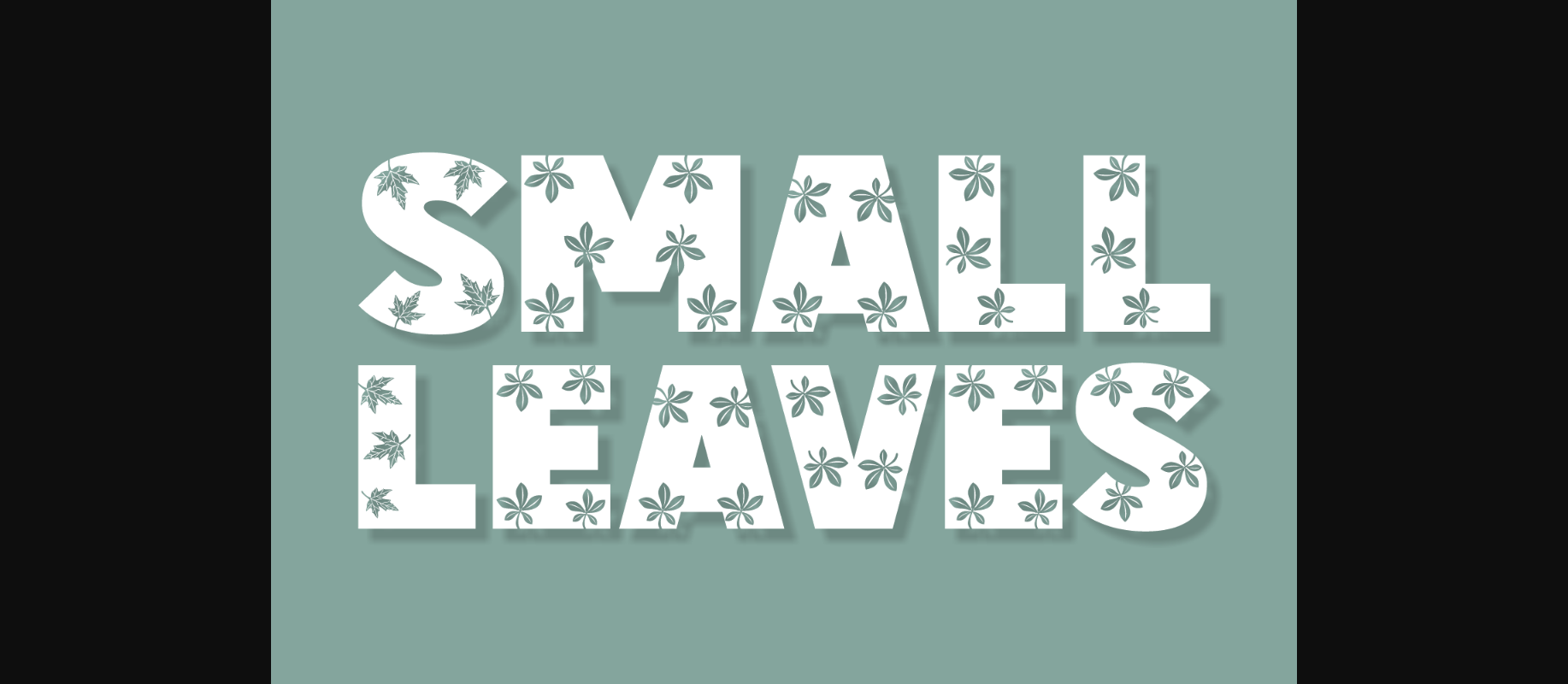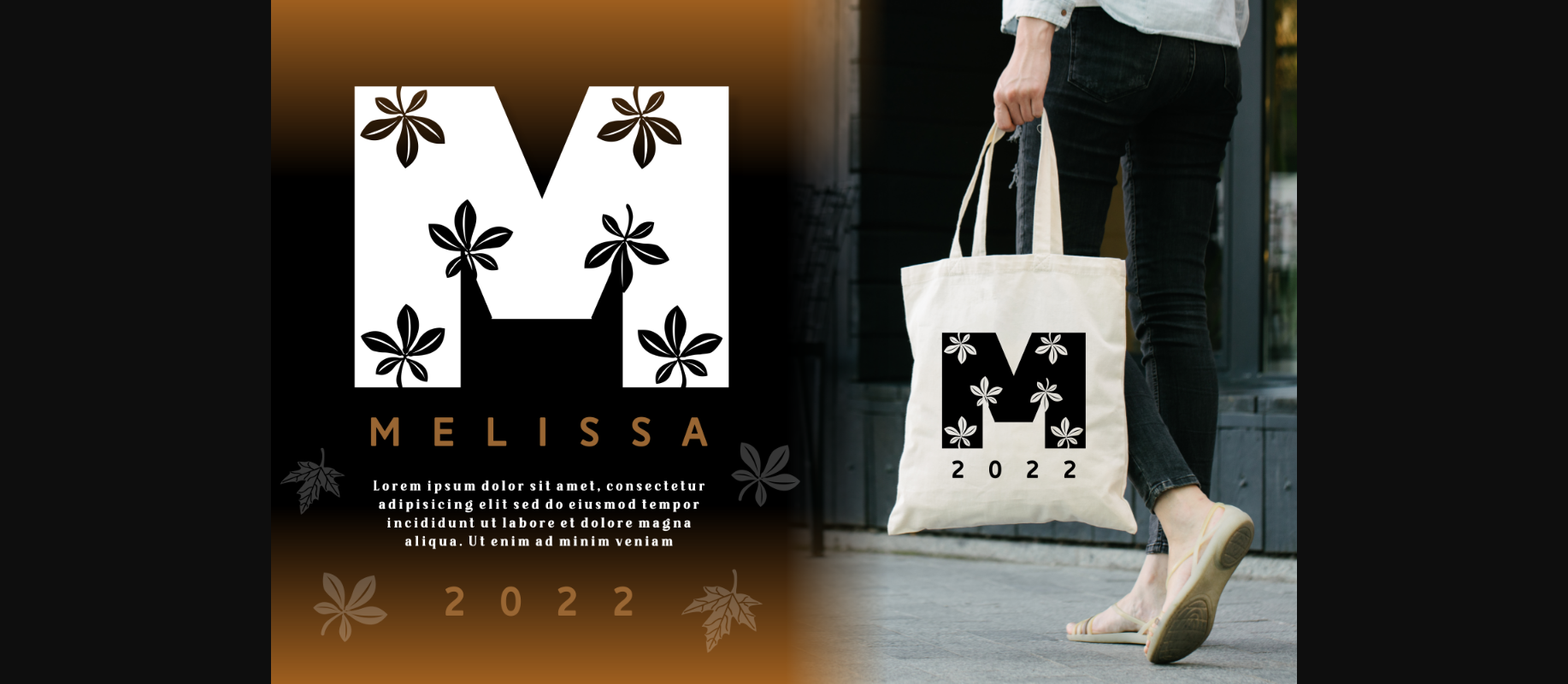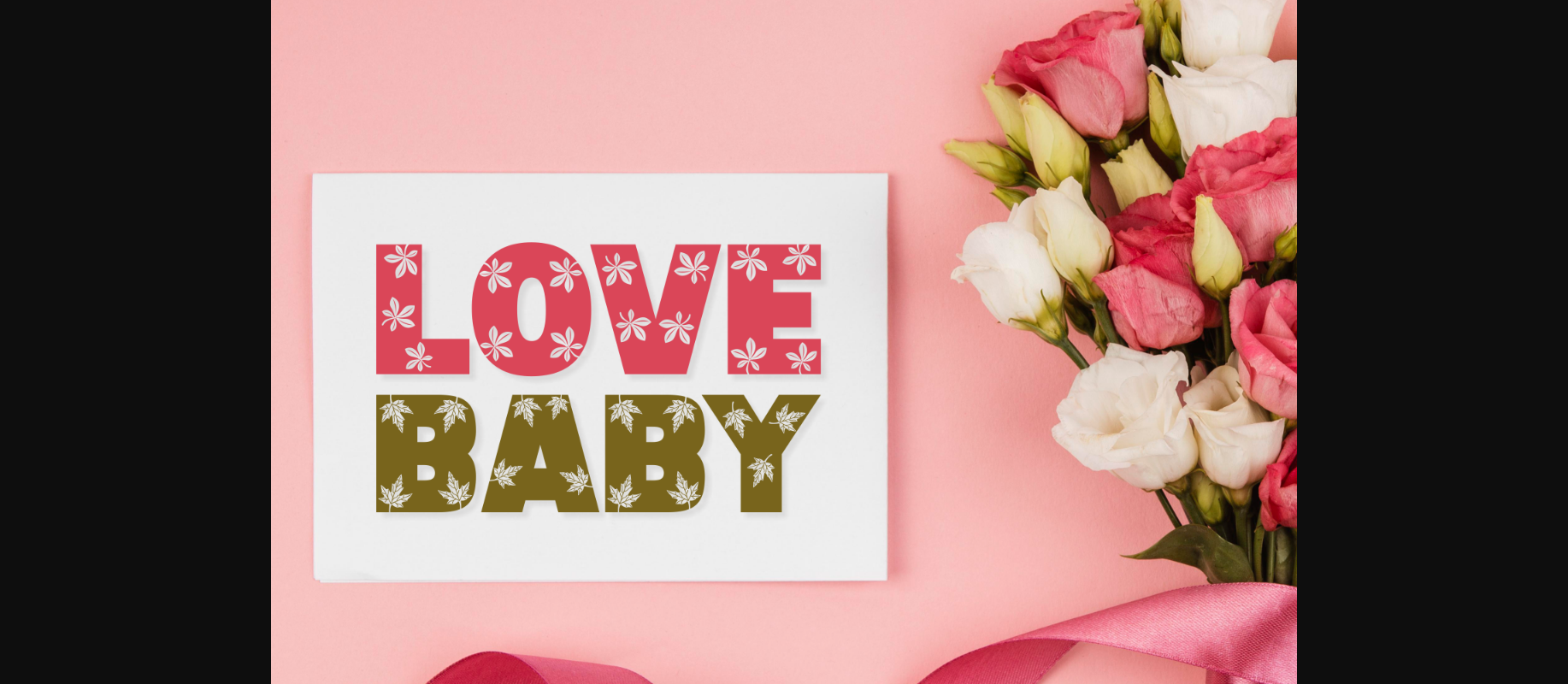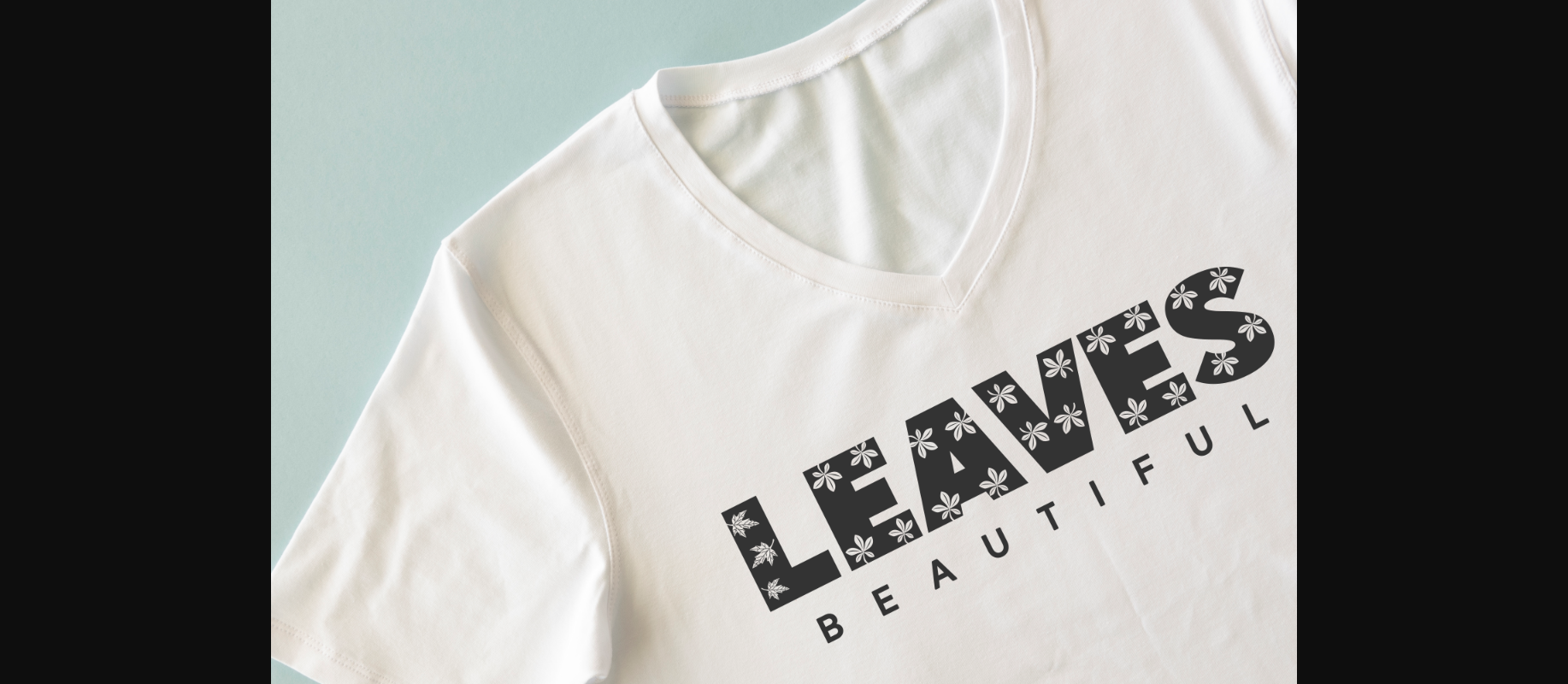
About Small Leaves Font
Small Leaves is a beautiful decorative font inspired by nature and leaves. You can use it for tote bags, t-shirts, posters, quotes, logos, covers, fashion, and more.